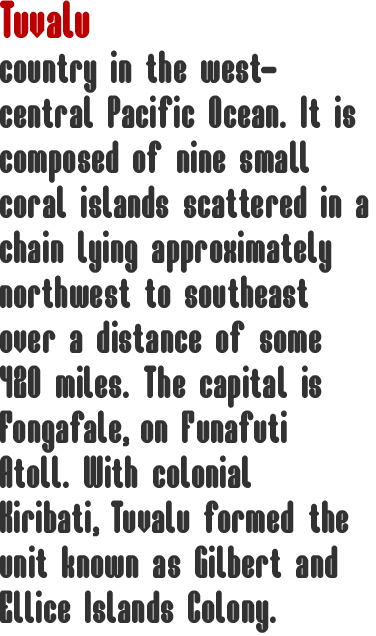
tuvalua
resubmission of the original fontstruction. added capitals and tweaked the overall readability.
Nice + Simple = Great!
Great stuff Saber. Appreciate the work you did to make a full alphabet. For some reason, my eye wants to round off the SW corner of your lowercase 'a'.
Simple, consistent and effective.
I find the space a bit too wide. And maybe the j could needs a negative left margin? :-)
Nice one :) very elegant, though I agrre with Gustavo about the spacing ... just needs to come in a tad (maybe only half a tad)